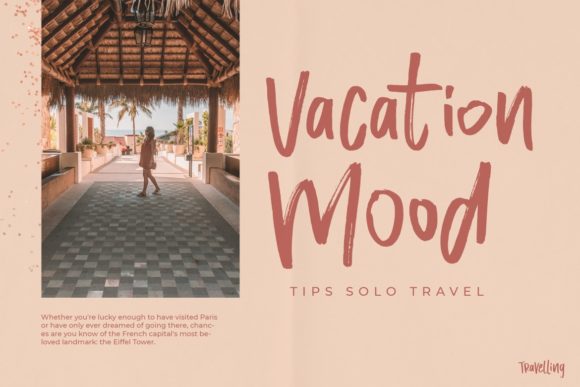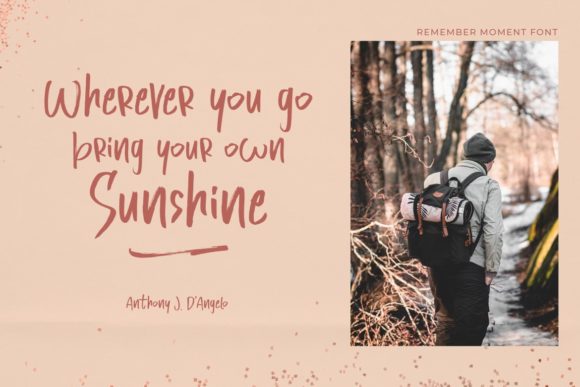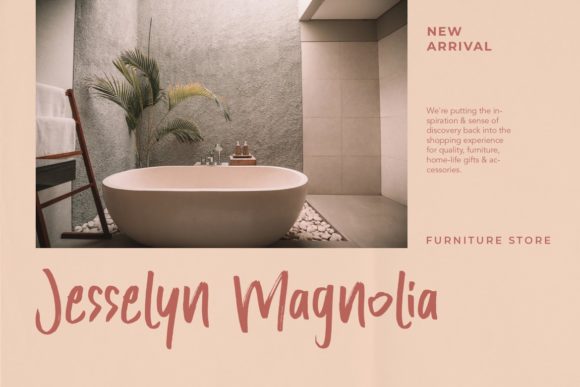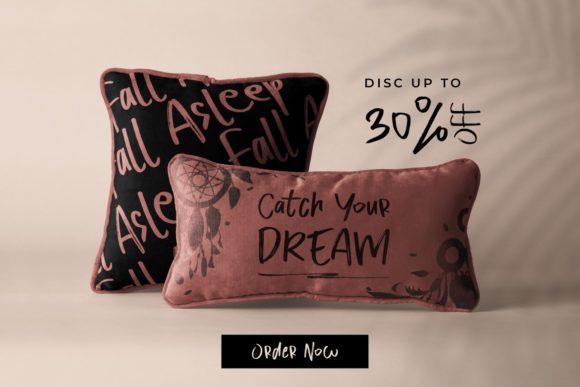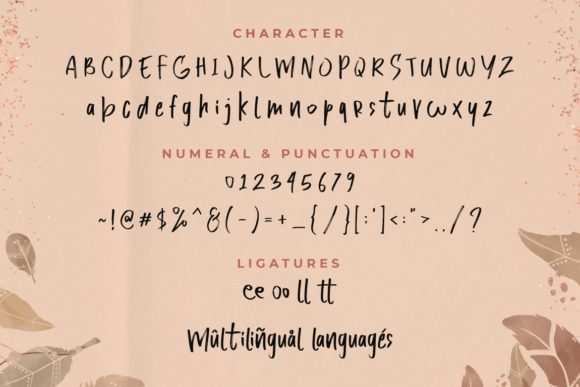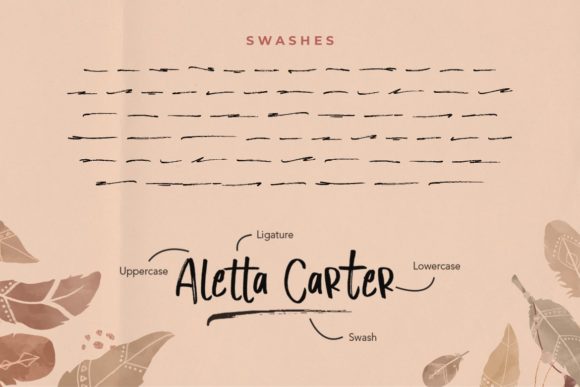
Introduction to Remember Moment Font
Remember Moment is a neat and relaxed brush handwritten font.
This original look will appeal to a wide range of crafty ideas, from letterheads and titles, to stationery .
Key Features of Remember Moment Font
Why Choose Remember Moment Font?
Remember Moment Font offers exceptional quality and versatility, making it a valuable addition to your design toolkit. Whether you’re creating for personal projects or commercial use, Remember Moment Font delivers professional results.